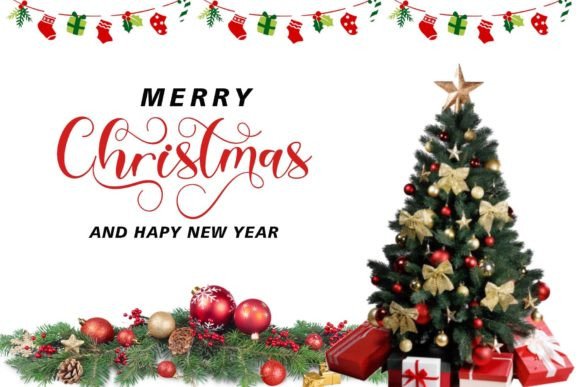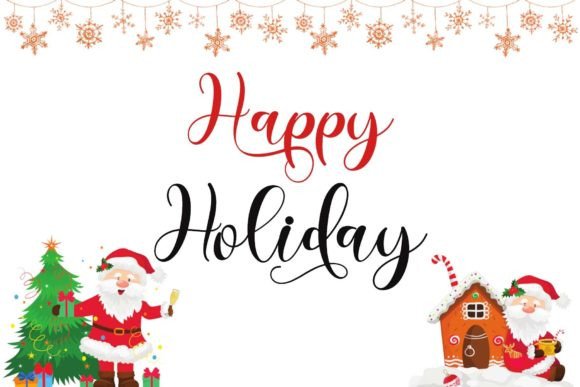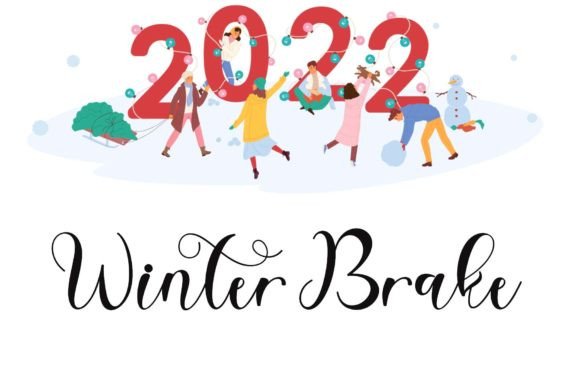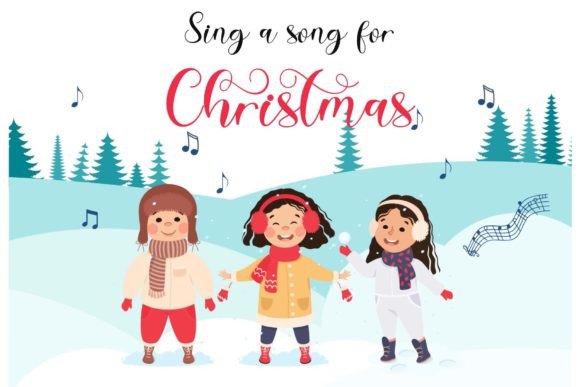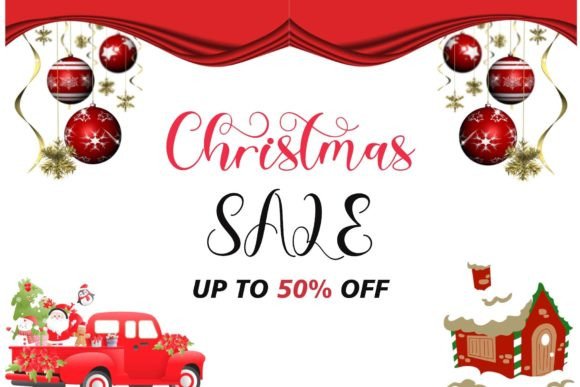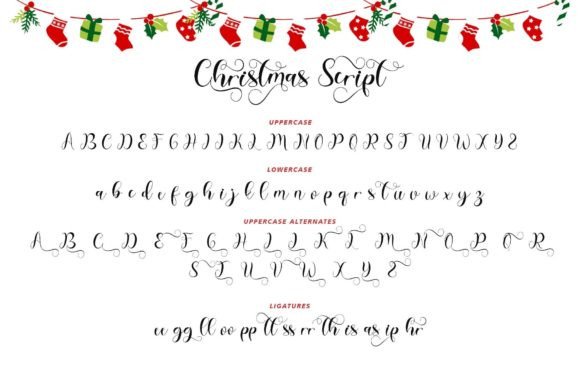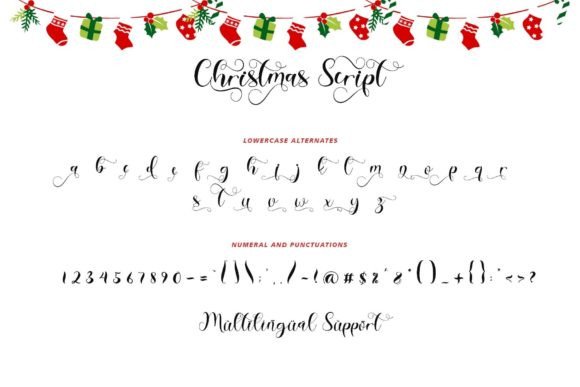
Christmas Script Font
About Christmas Script Font
Christmas Script is a festive, Christmas edition script font. Whether you’re using it for crafts, digital design, presentations, or making greeting cards, this font has the potential to become your favorite go-to font, no matter the occasion! Christmas Script is PUA encoded which means you can access all the glyphs and ligatures with ease!